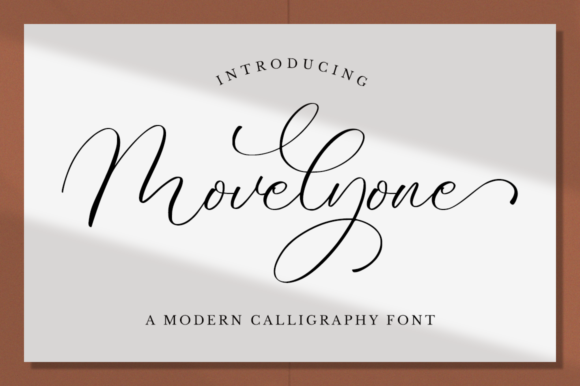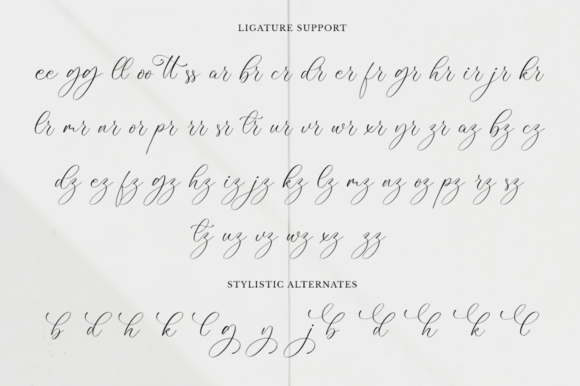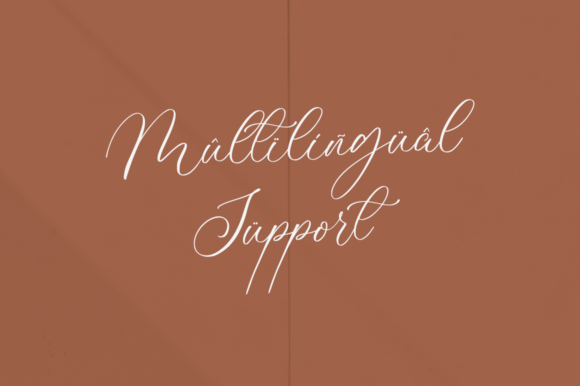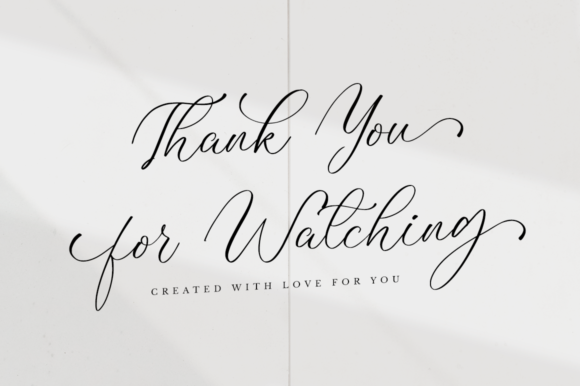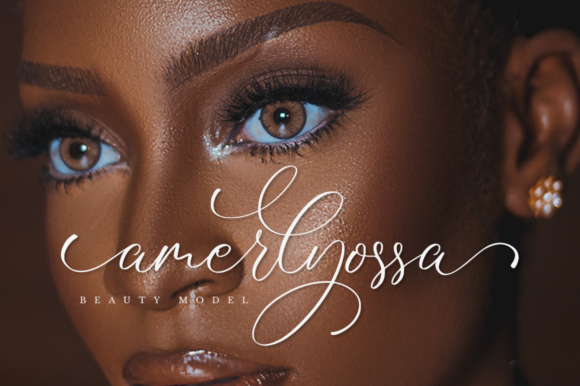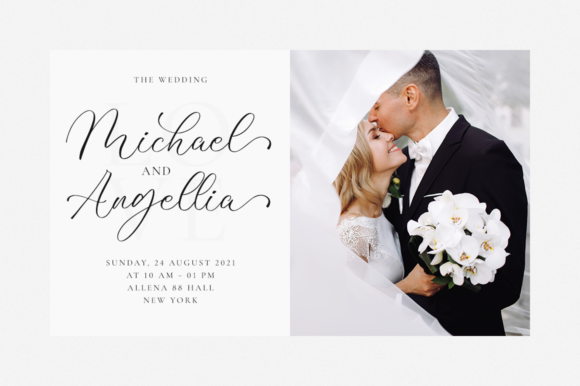
Movelyone Font
About Movelyone Font
Movelyone is a handwritten font that feels equally charming and elegant. It looks stunning on wedding invitations, thank you cards, quotes, greeting cards, logos, business cards, and every other design which needs a handwritten touch. This font is PUA encoded, which means you can access all of the glyphs and swashes with ease!